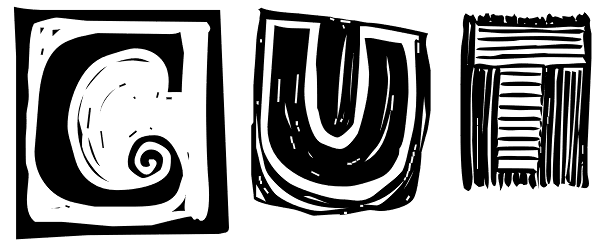
Cut
Cut is a font made from rubber stamps that were specially hand carved by Kerrie. Cut is a single case alphabet, but the font includes Cut Regular and Cut Reversed (the upper and lower case letters) with numbers and extra image symbols.